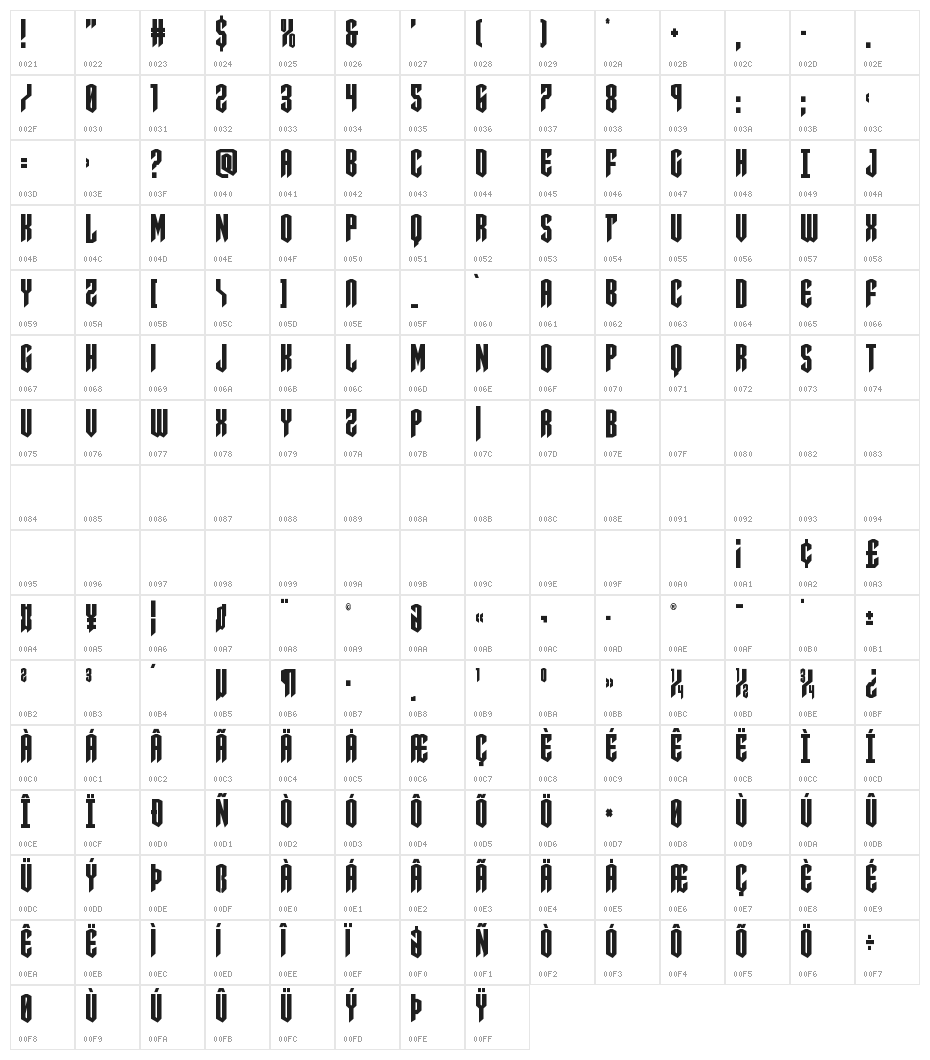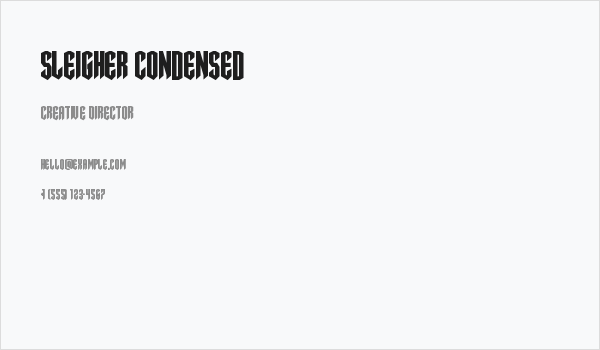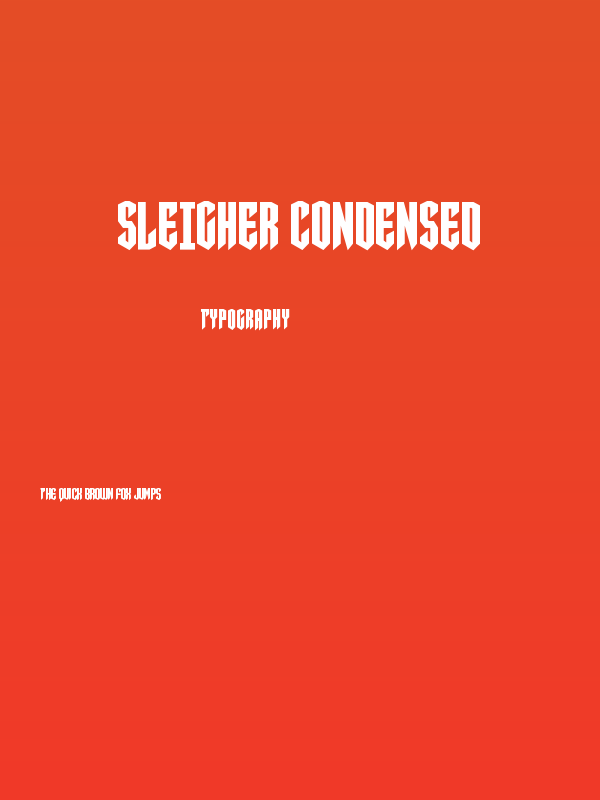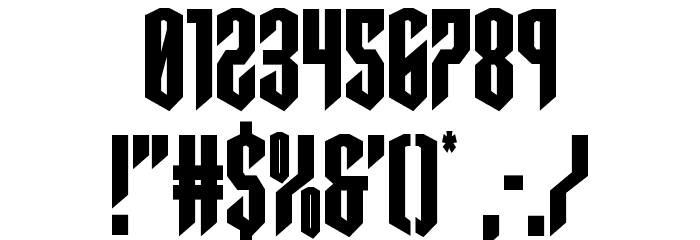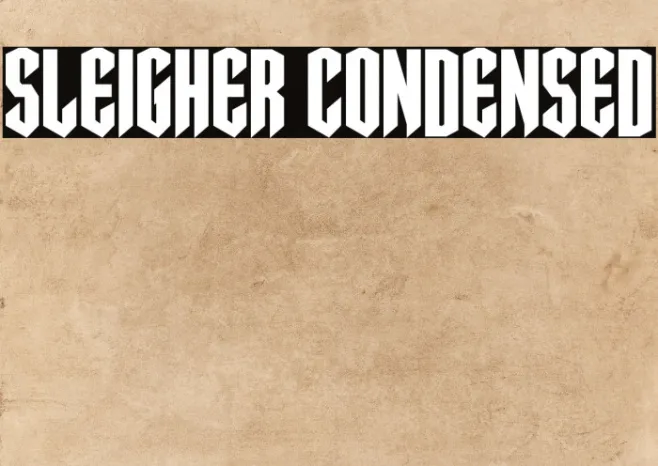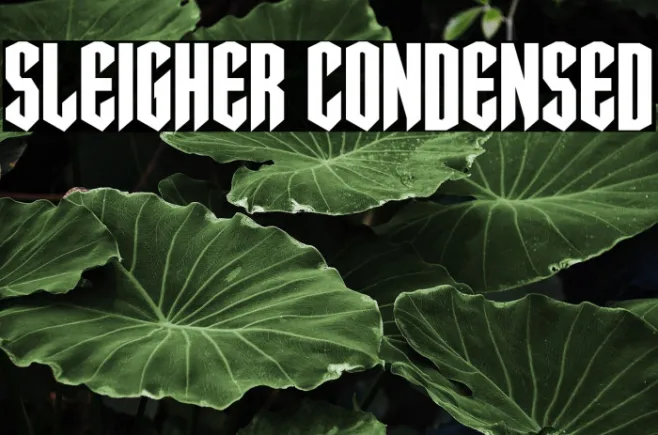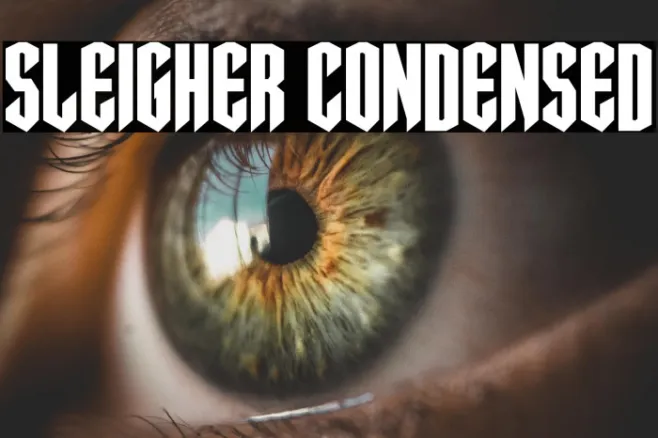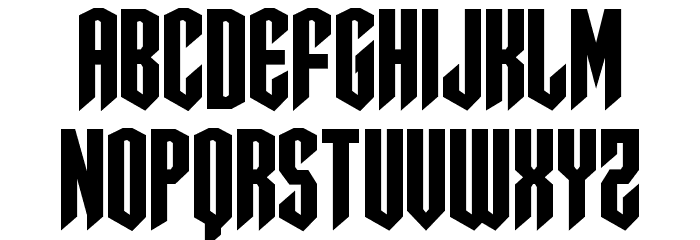
Sleigher Condensed Font
Sleigher Condensed Description
This font features a bold, condensed style with sharp, angular edges that create a striking and aggressive appearance. The uppercase letters are particularly prominent, with a geometric design that emphasizes verticality and strength. The lowercase letters maintain the same boldness and angularity, ensuring consistency across the typeface. Numbers and special characters follow the same design principles, making them equally impactful. This font's unique style is reminiscent of heavy metal or gothic themes, making it ideal for projects that require a strong visual impact.
| Overall Style | Modern, Gothic |
| Proposed Projects | Ideal for music album covers, event posters, logos, and branding that require a bold and edgy look. |